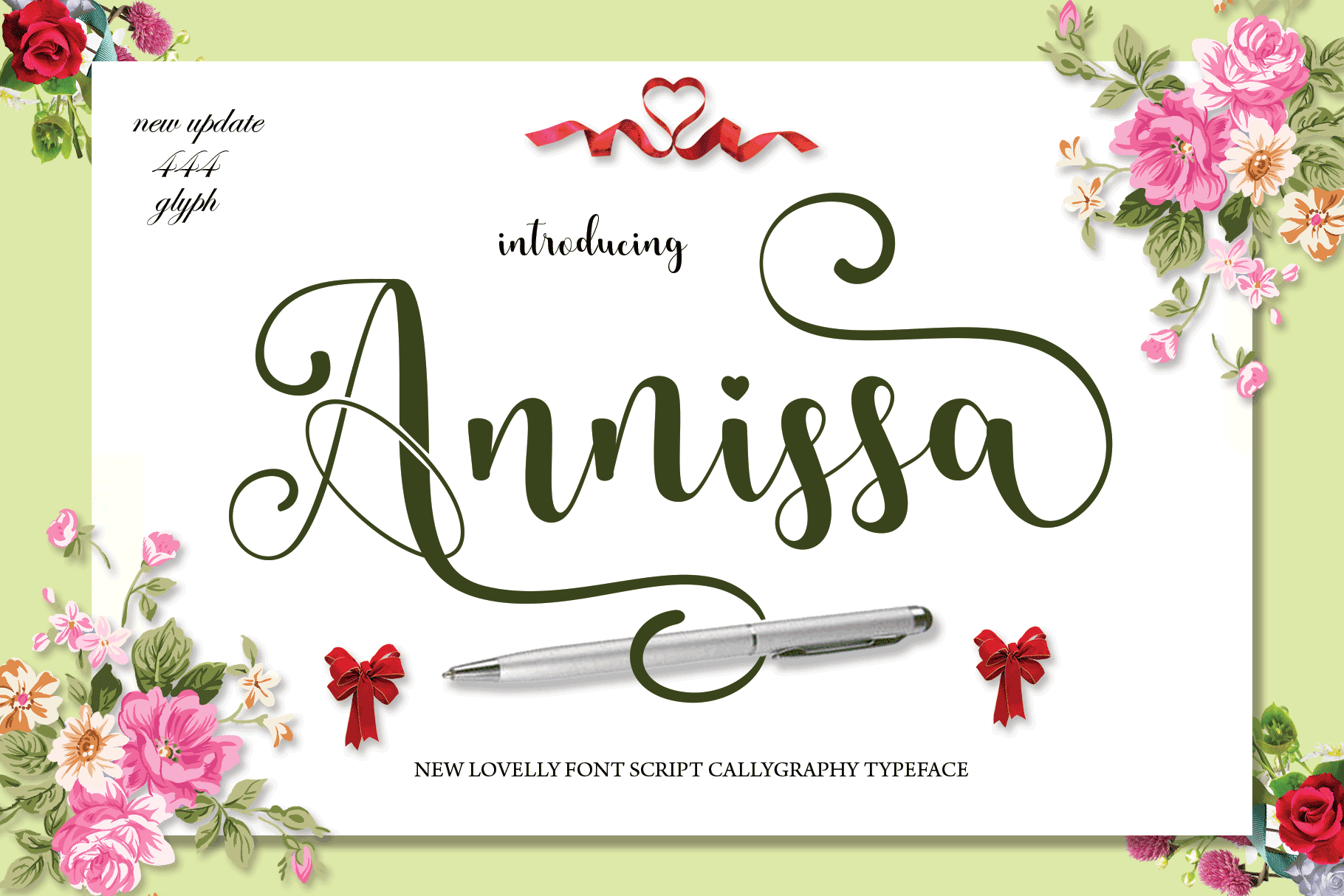
About Annissa Script
Annissa Modern Calligraphy. This font was designed by handwriting, and it has a modern and unique forms of calligraphy, the writing style is very natural. The Features of this fonts is; Standart ligatures Stylistic Alternates Contextual Alternates Stylistic sets File font Annissa Include; Annissa OTF Annissa TTF Annissa  font Web Annissa PUA Unicode (Private Use Areas) Programs that support in this font is a Photo Shop, Adobe Illustrator, Adobe Indesign, Corel Draw and Microsoft Office.